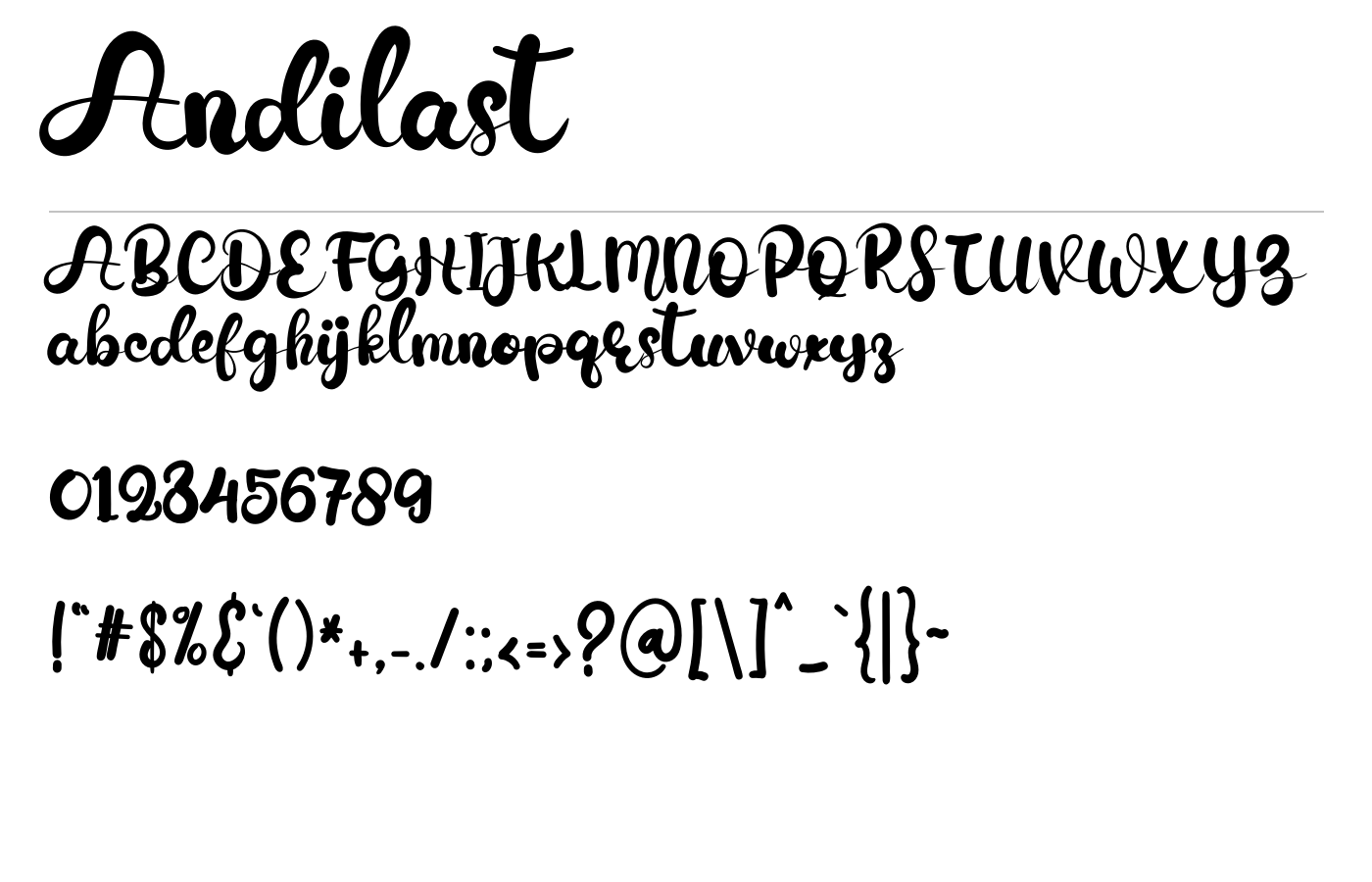
Andilast is a playful and bold script font with a smooth, rounded stroke and moderate contrast that gives it a friendly yet dynamic character. Its connected letterforms and unique, slightly whimsical shapes make it perfect for creative branding, invitations, and decorative headlines where a casual and inviting atmosphere is desired. This font works especially well in designs aiming for a personal, handmade touch with a lively and approachable vibe.
Andilast Font
About Andilast Font
| Font family | Andilast Font |
| Designer | Nur Edi Prayitno |